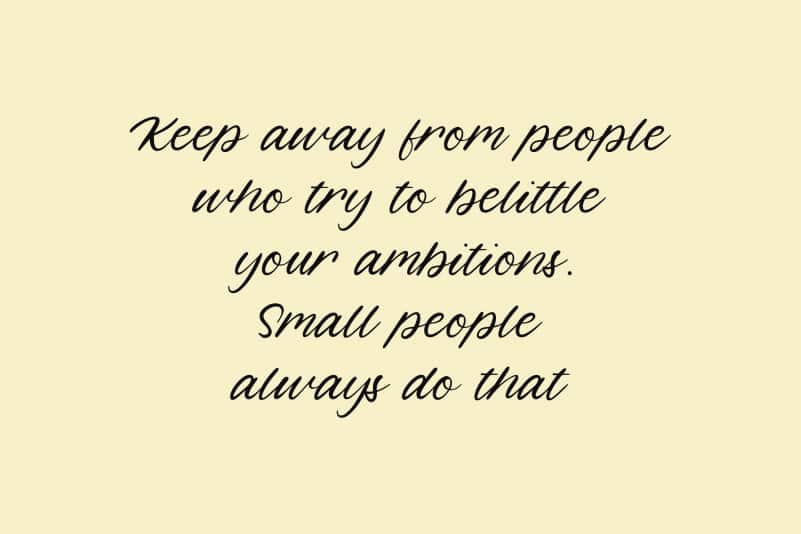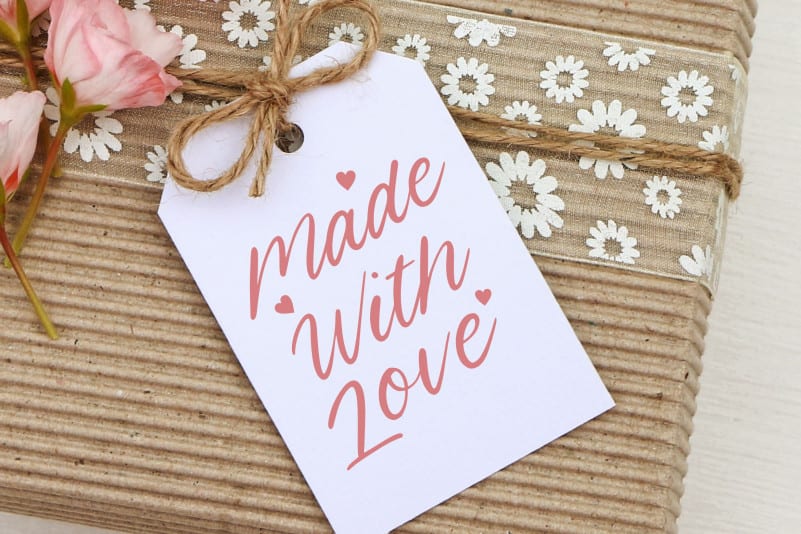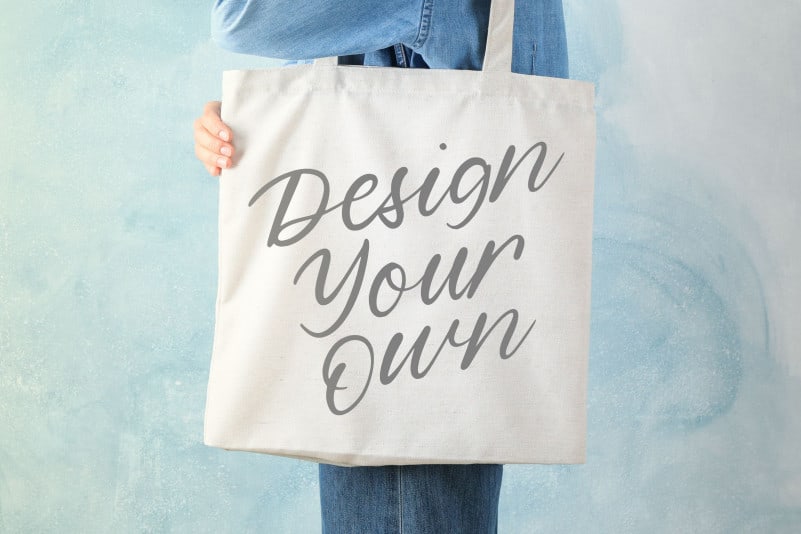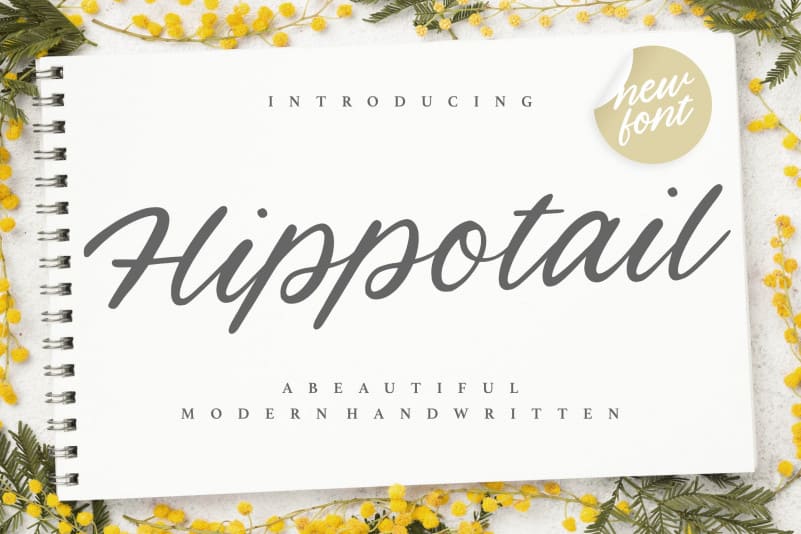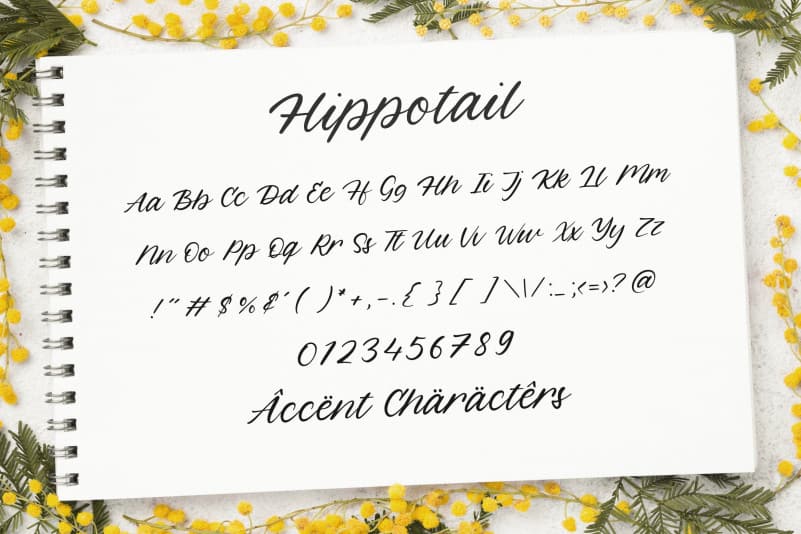
Hippotail Handwritten Font
Proudly Present, Hippotail Handwritten Font.
Hippotail is a Beautiful Modern Handwritten Font.
Hippotail is perfect for product packaging, branding project, megazine, social media, wedding, or just used to express words above the background.